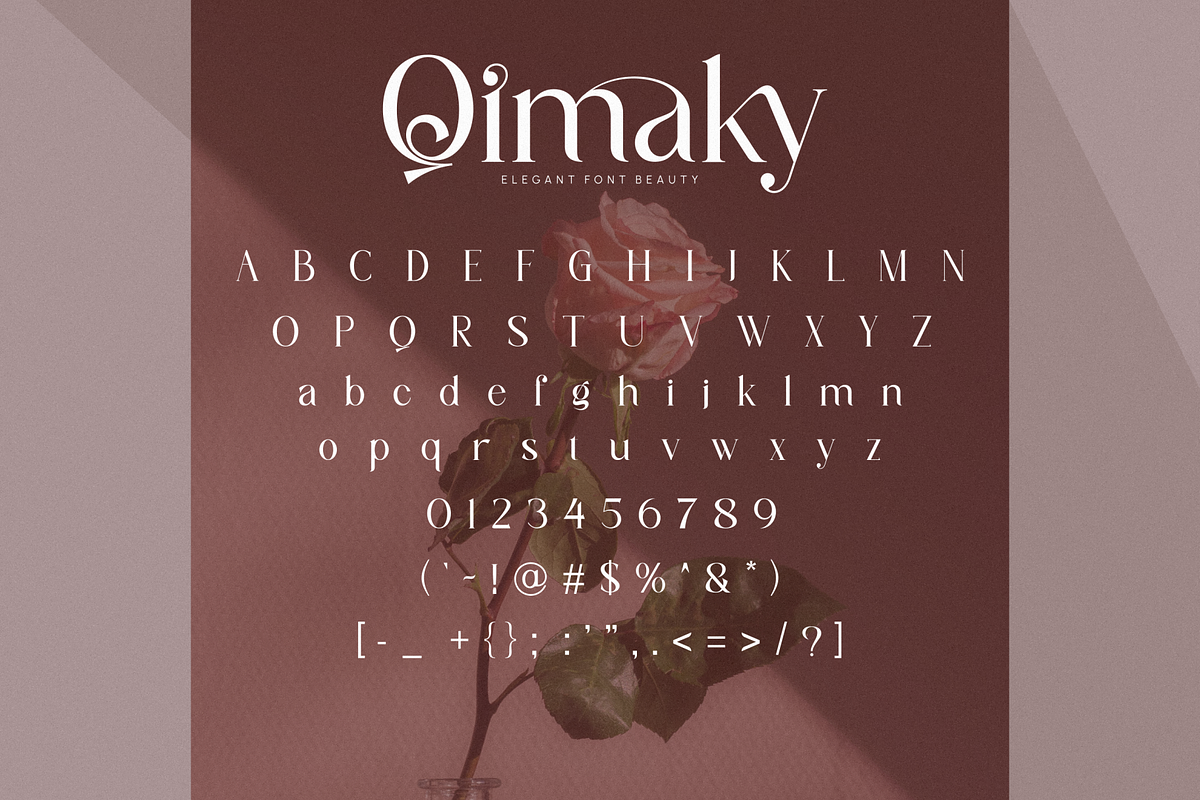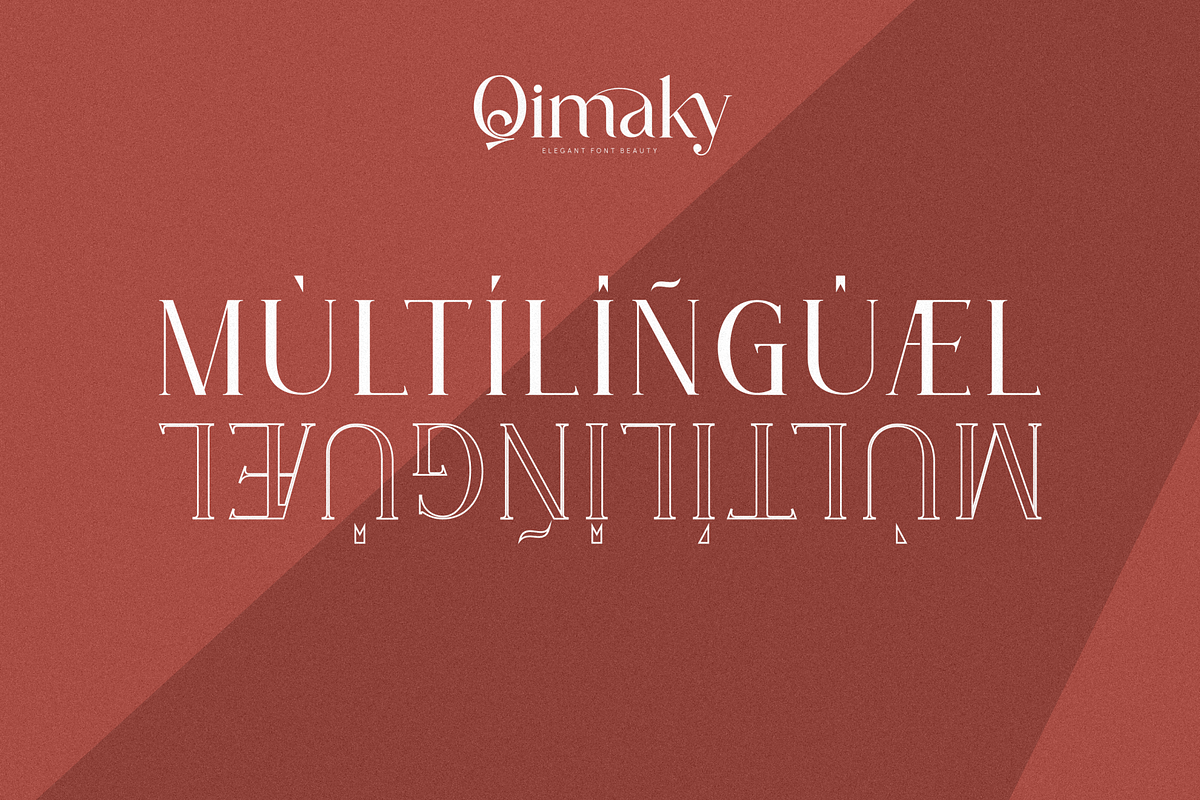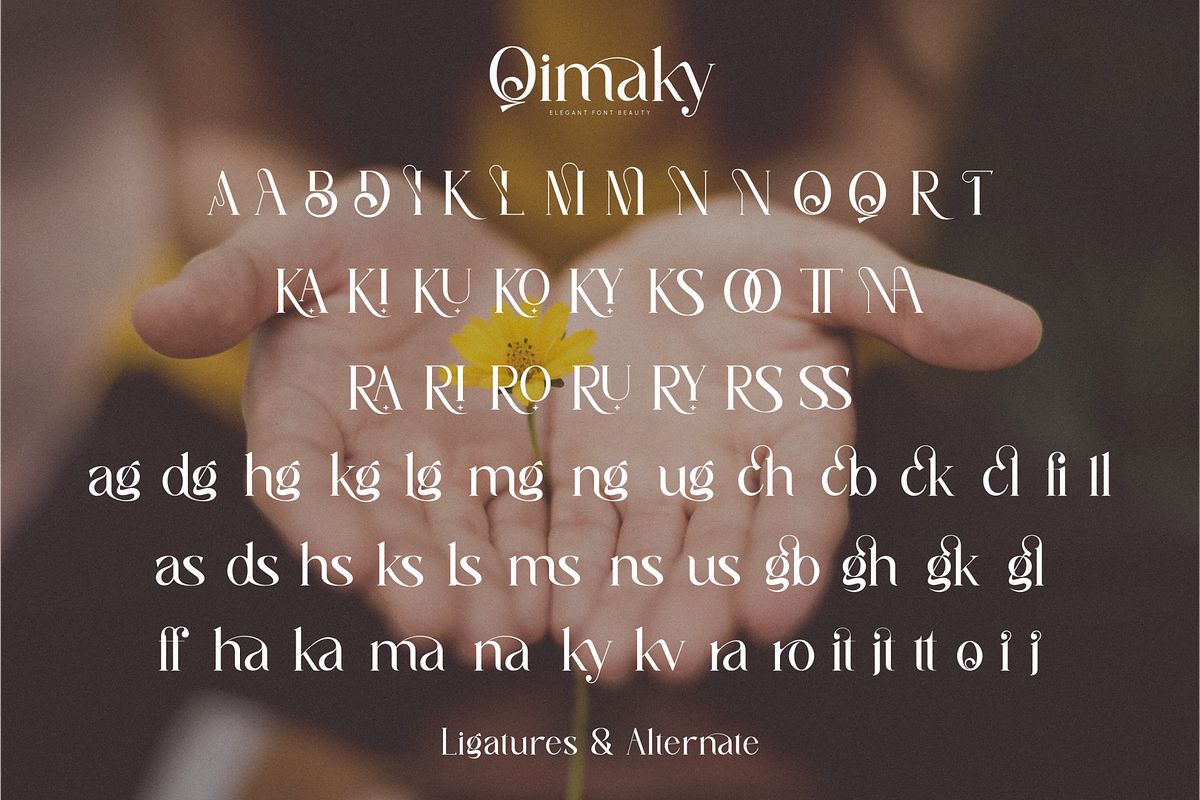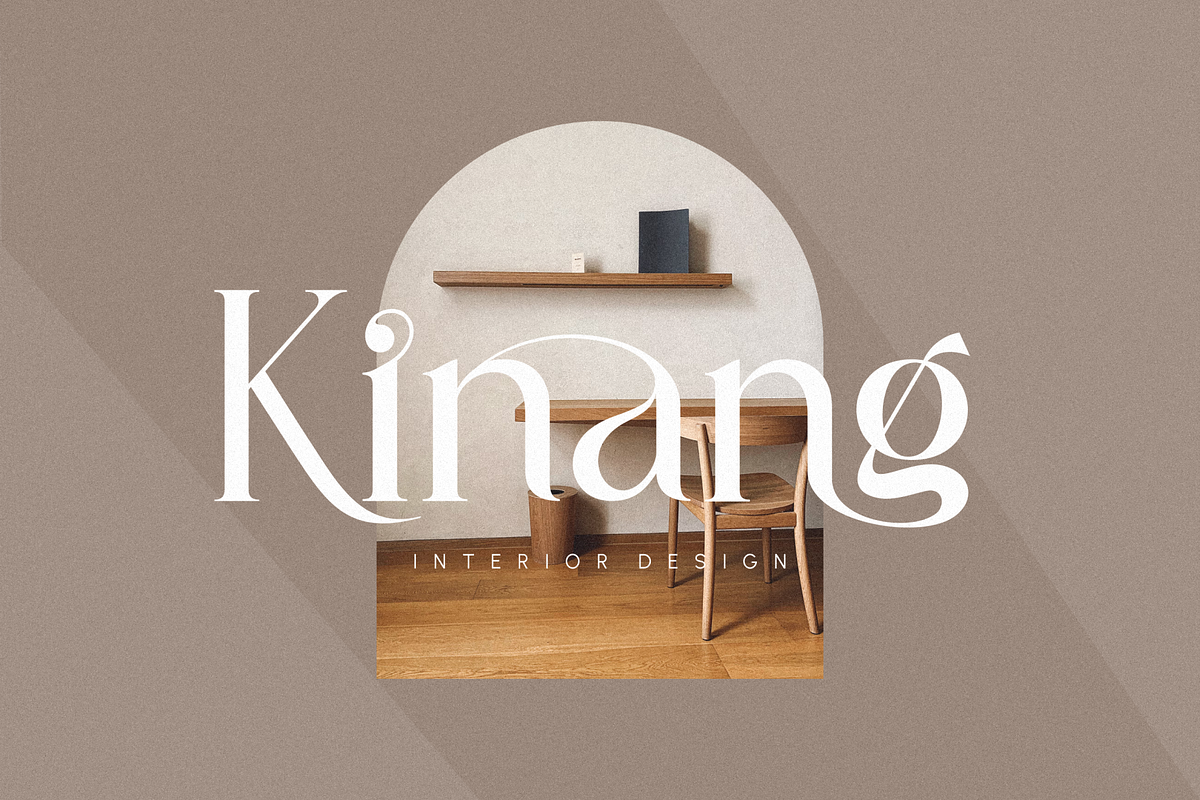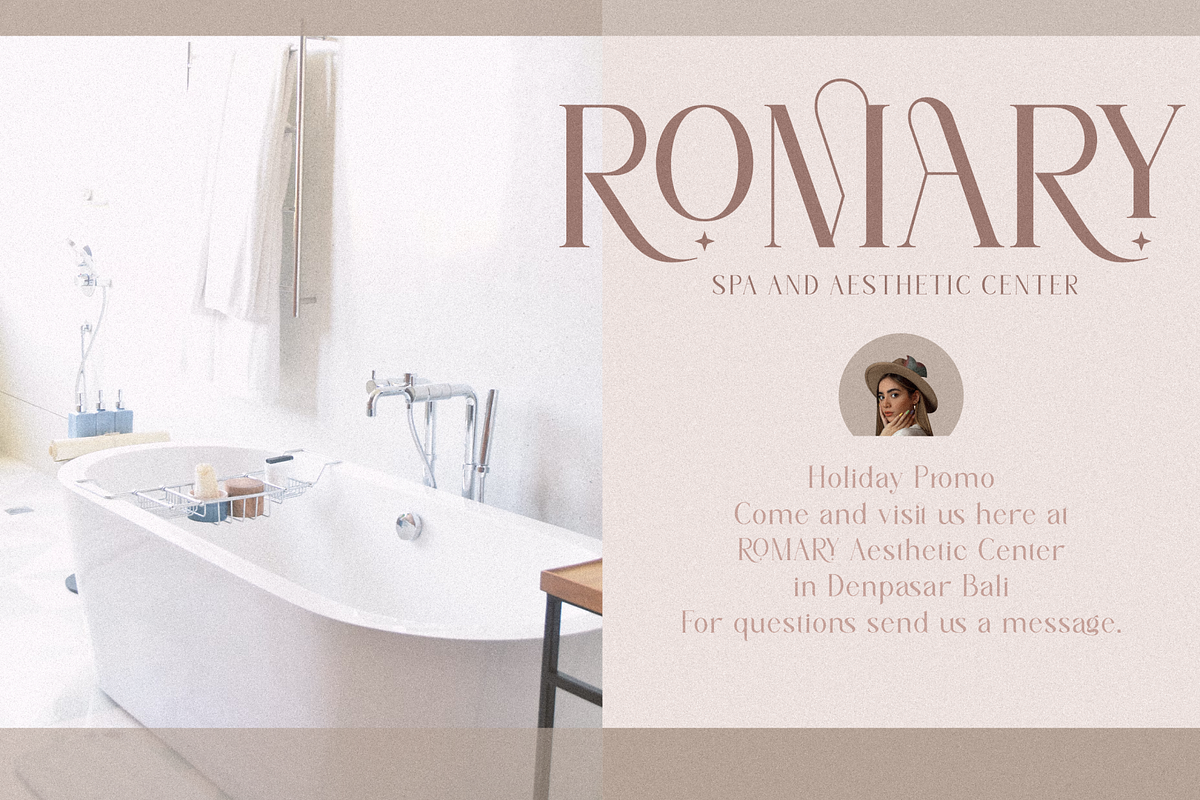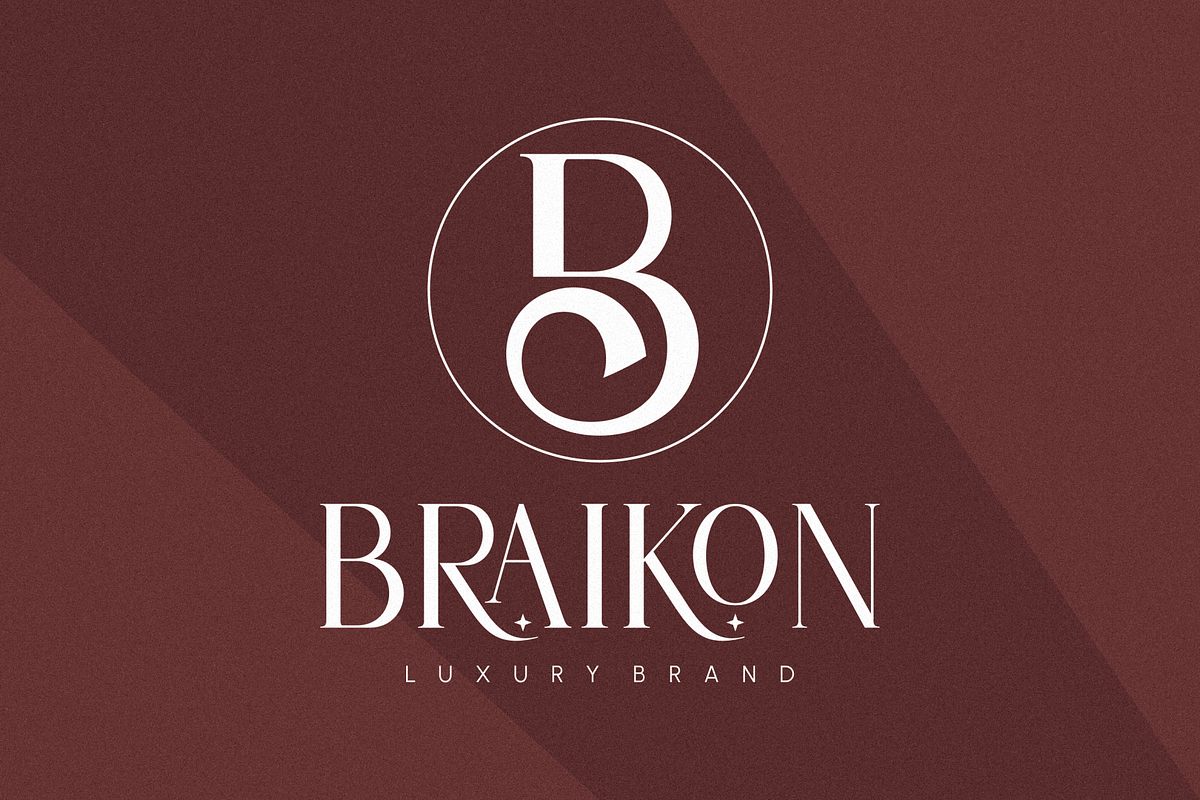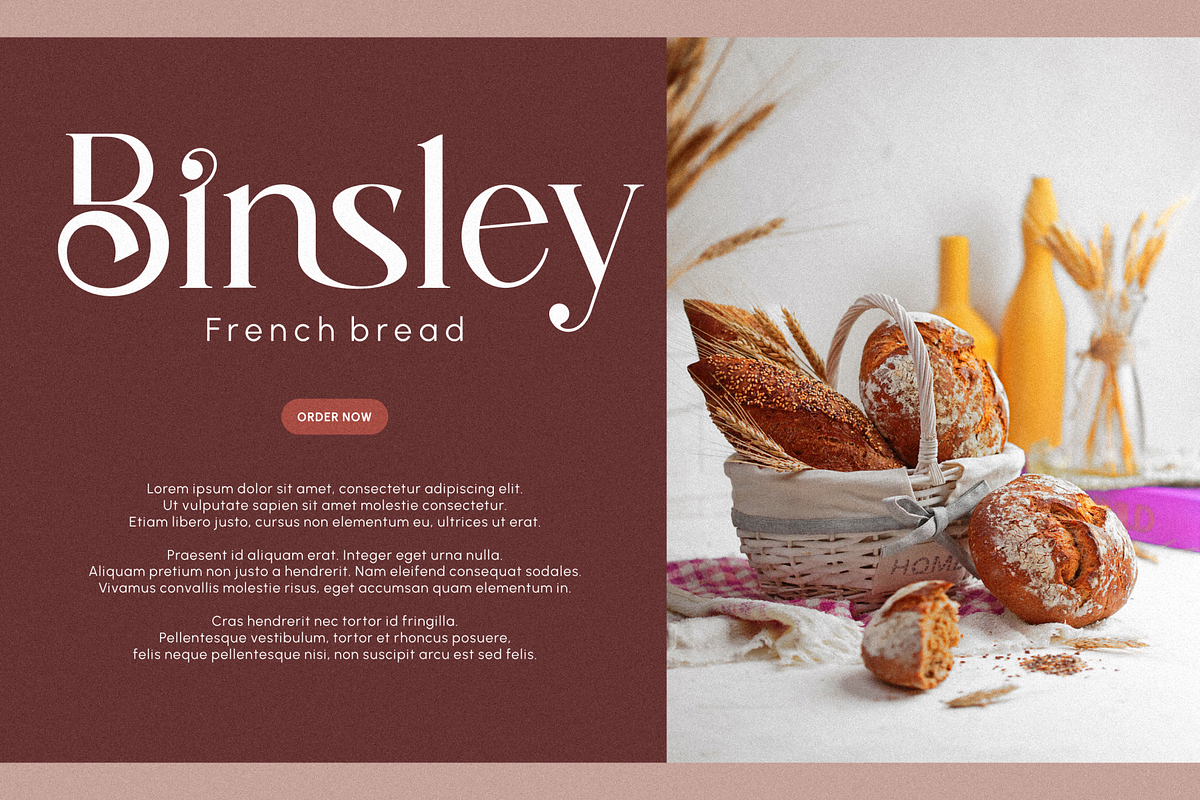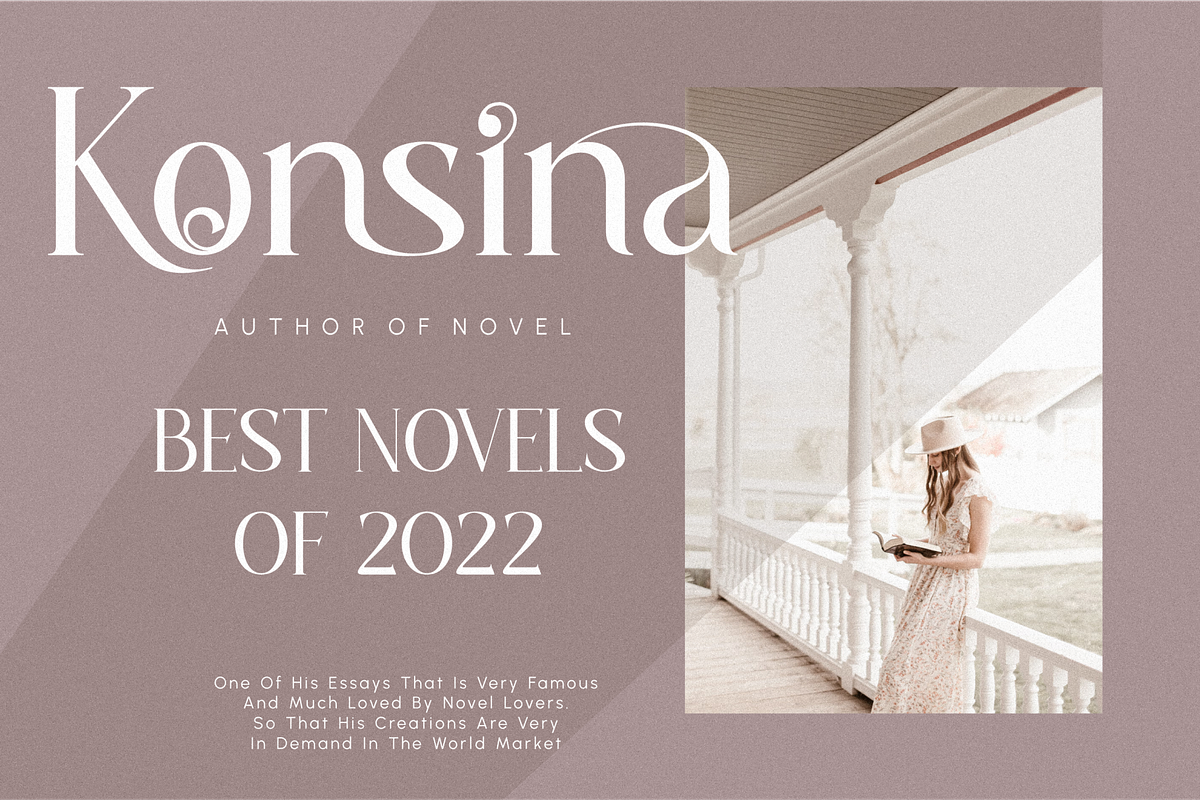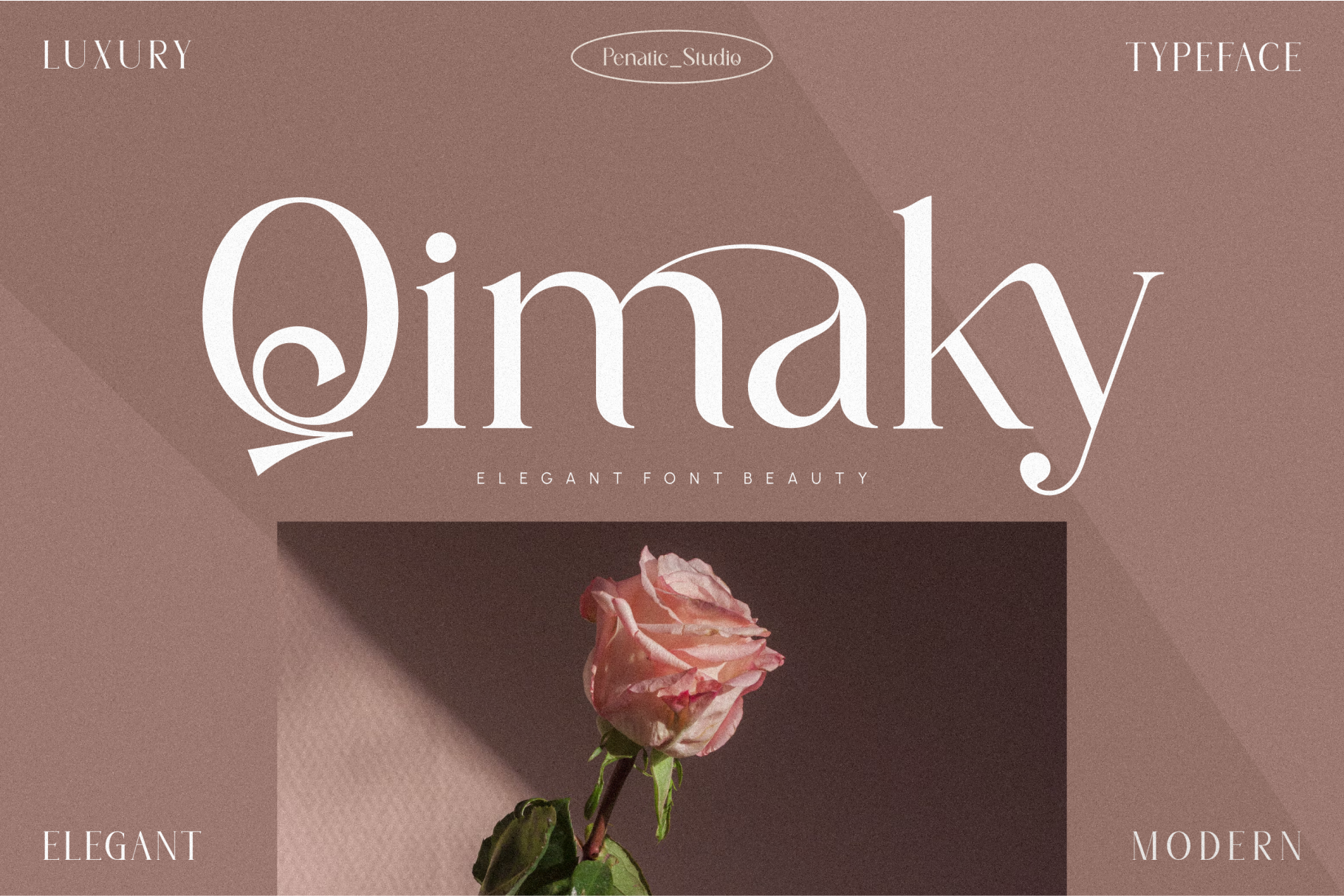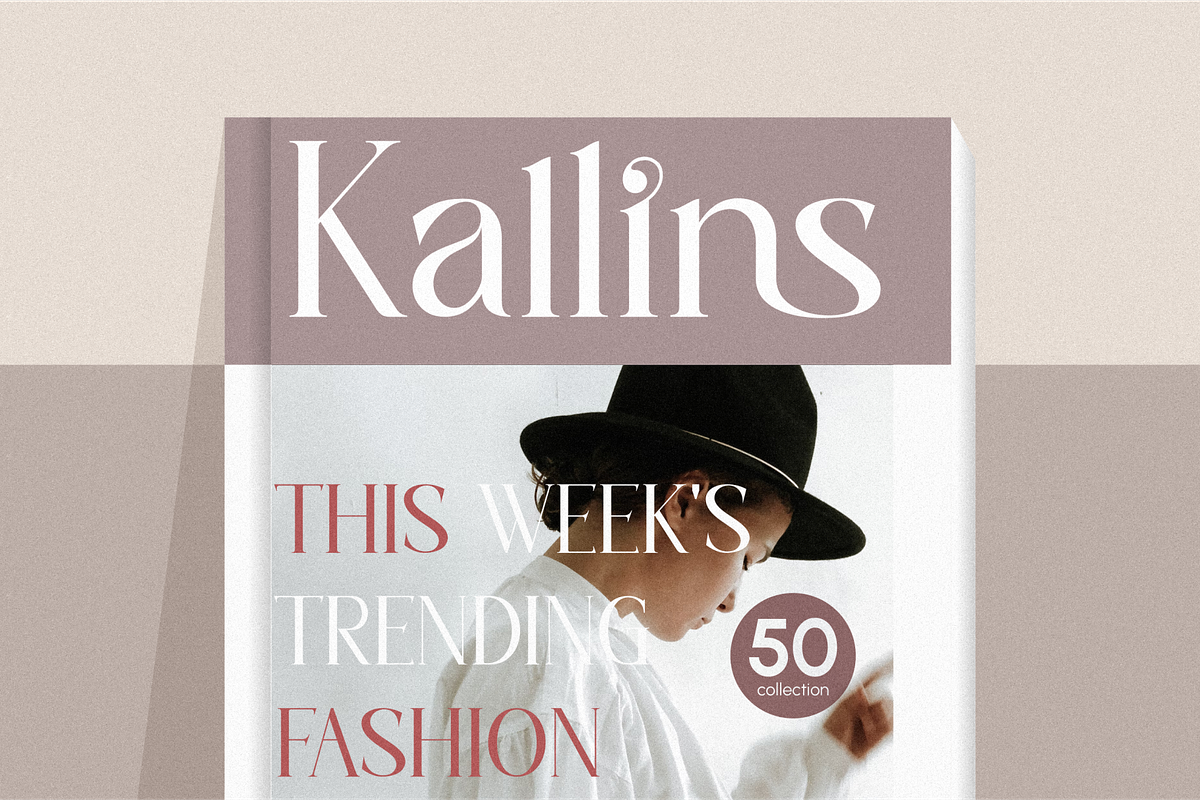
Qimaky _ elegant font beauty
Introduce our new product. Qimaky _ elegant font beauty. a modern font designed with subtle curves. with many ligatures and alternative letters that will make your project look more elegant and beautiful. Great for branding projects, logos, wedding designs, social media posts, advertising, product packaging, product designs, labels, photography, watermarks, invitations, stationery and more.